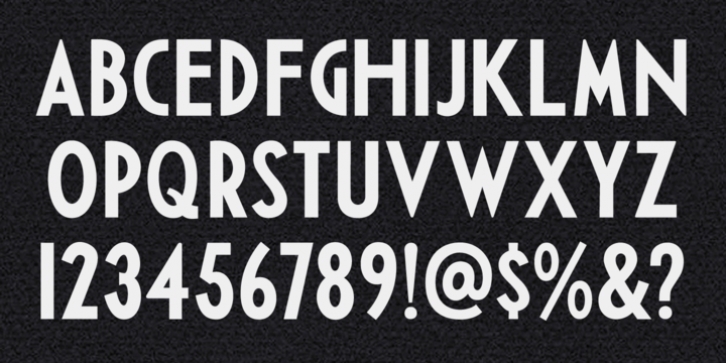
Deco is a minimal, easy-to-read gothic without fuss. Geometry is sharp, strokes are uniform throughout, and characters are slightly condensed. This version is based on wood type of unknown origin, but the design was likely based on lettering from the Art Deco period of the 1920s and '30s.